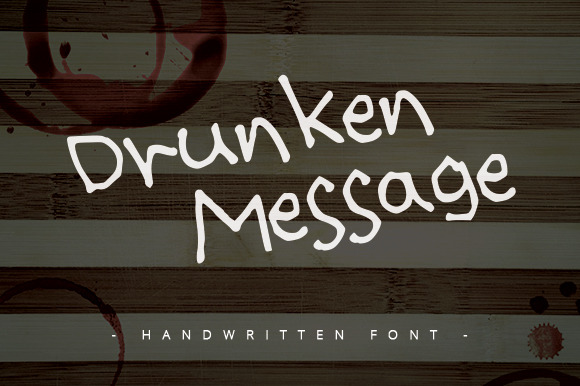
Drunken Message ~ Handwritten Font ~
Drunken Message - Handwritten font
Handwritten font with a casual, freehand style.
Suitable for greeting cards, branding materials, business cards, quotes, posters, packaging, logos, etc.